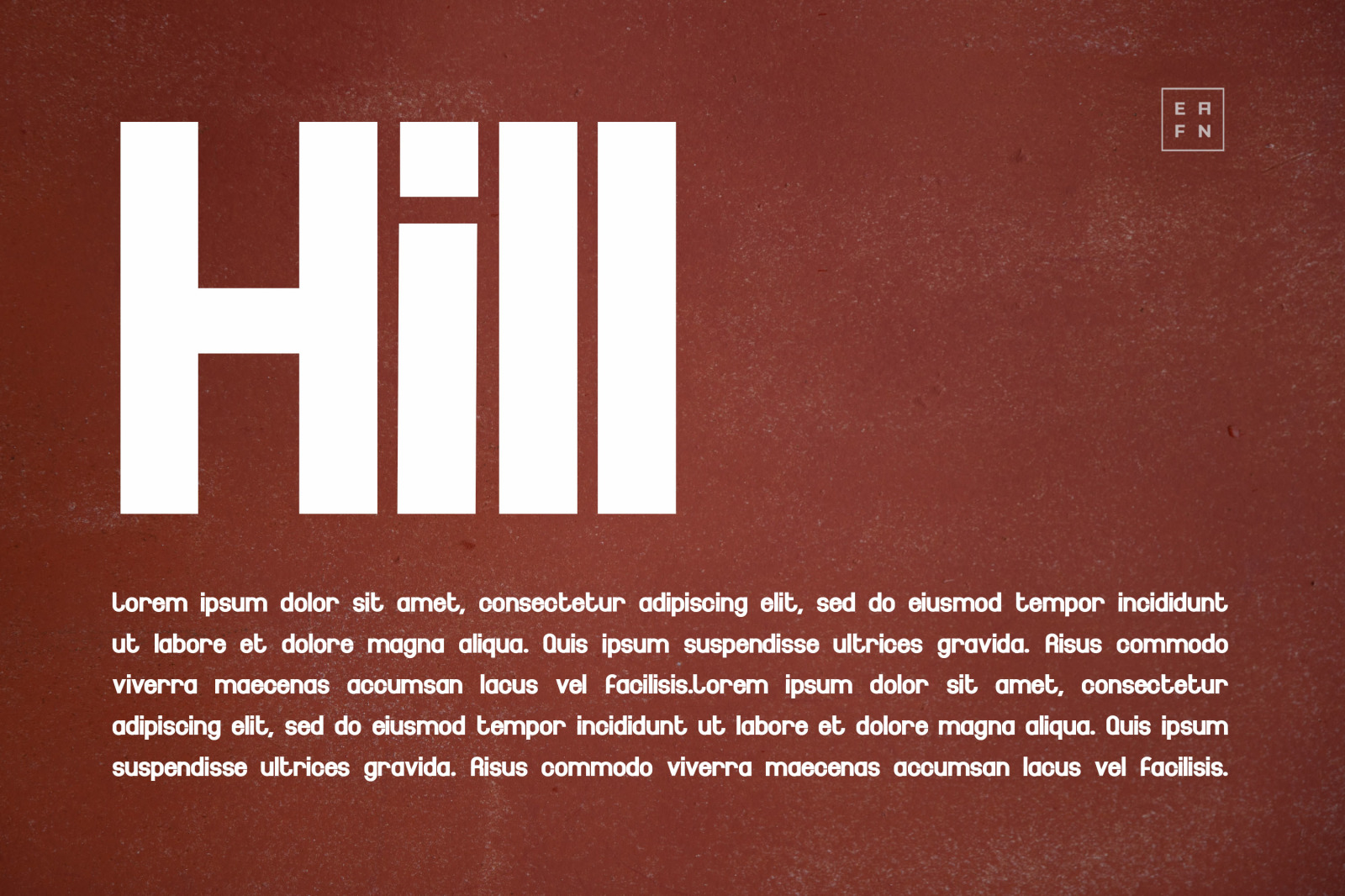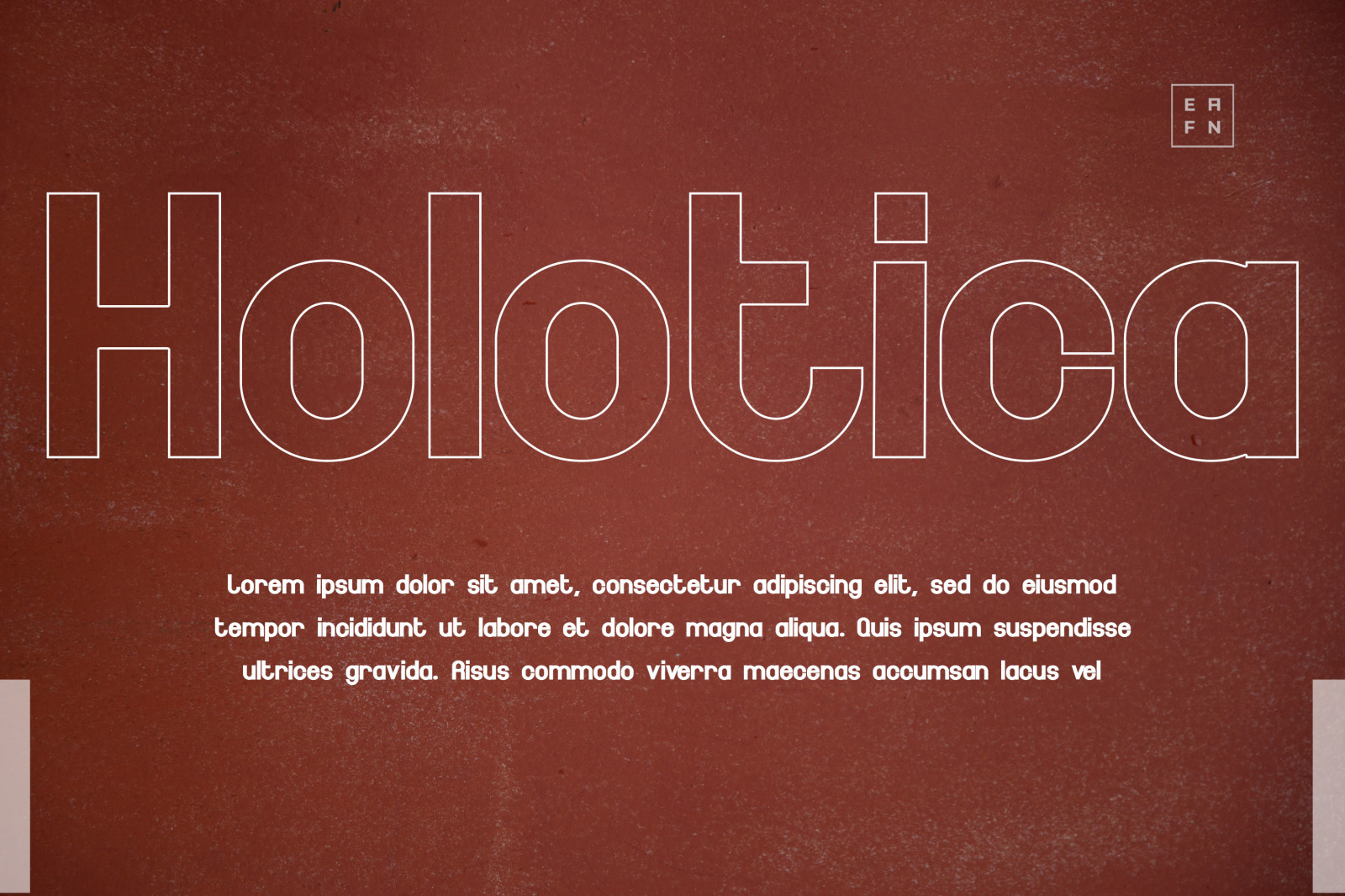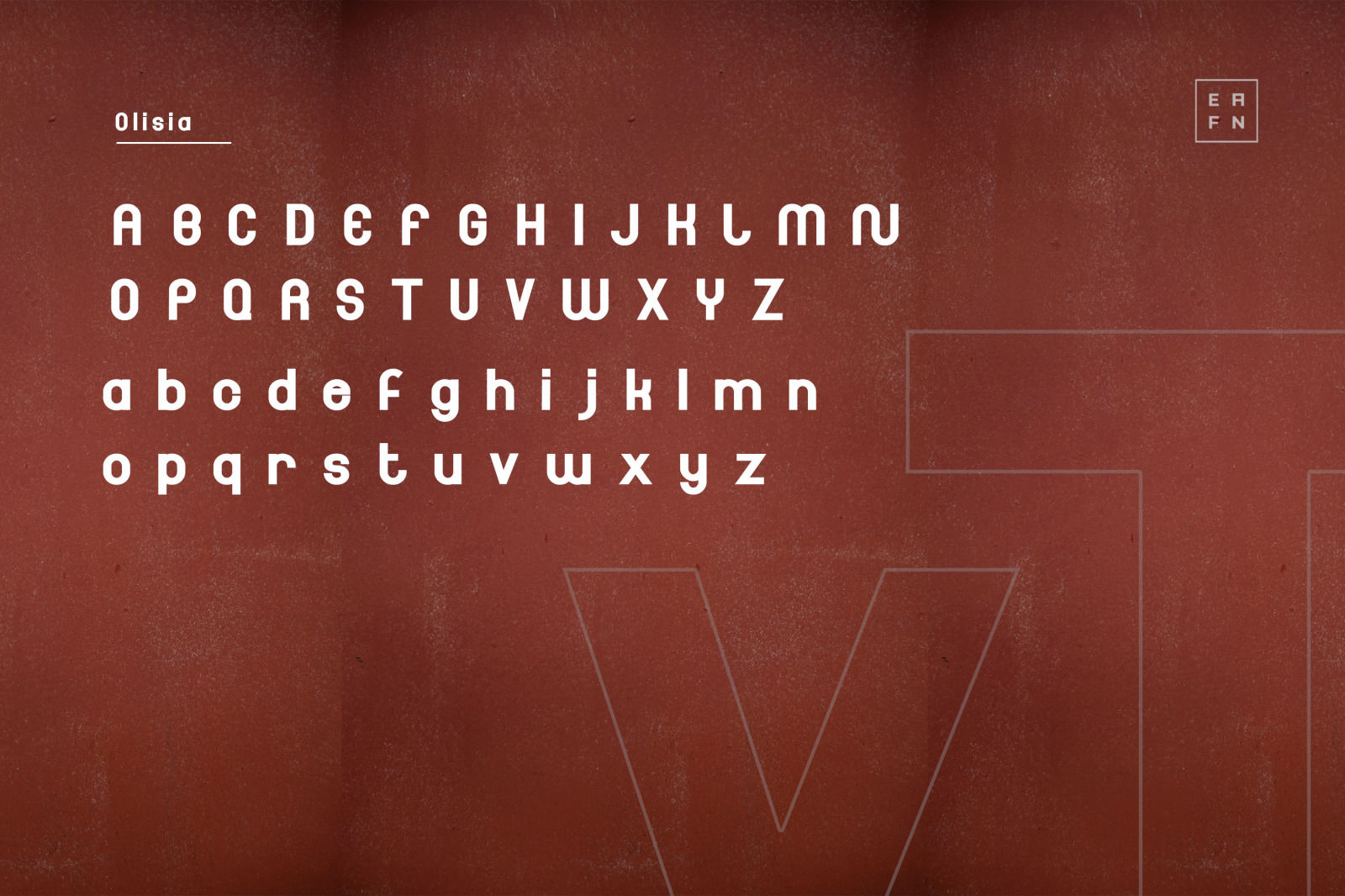
Olisia Font
Olisia is a minimal and neat sans serif font.Whether you’re using it for crafting, digital designing, presentations or greeting cards making, it’s perfect!
This adaptable font will look great on a variety of design ideas. It will add friendly touch to each of your projects!
This font is an excellent choice for strengthening your design projects.
Olisia font can be the perfect choice for creating outstanding logos, promotional content, and marketing graphics that can bring uniqueness and freshness at its level best!
This font is an excellent choice for strengthening your design projects.